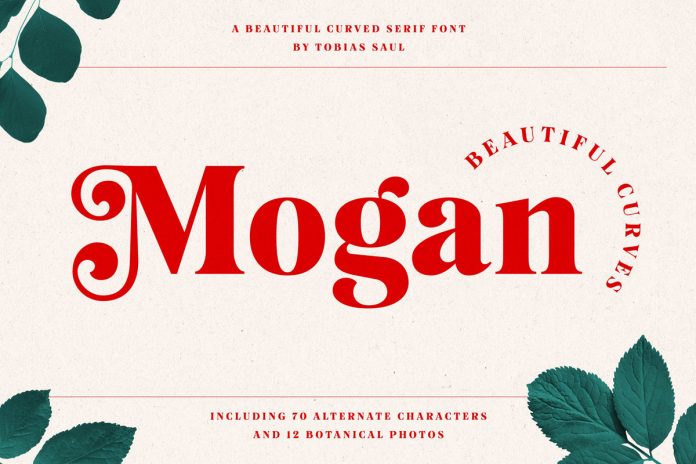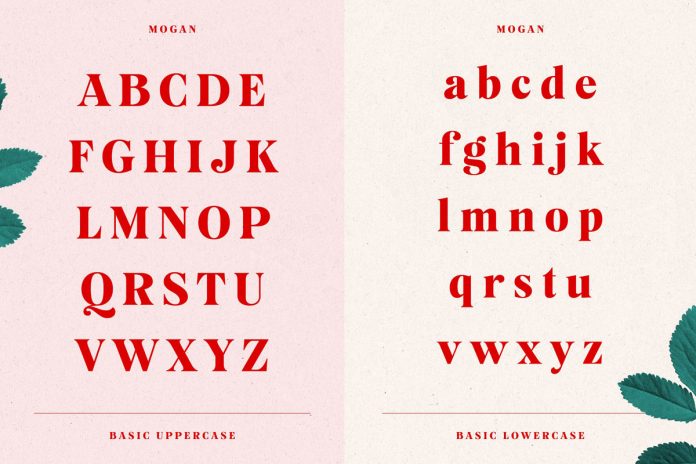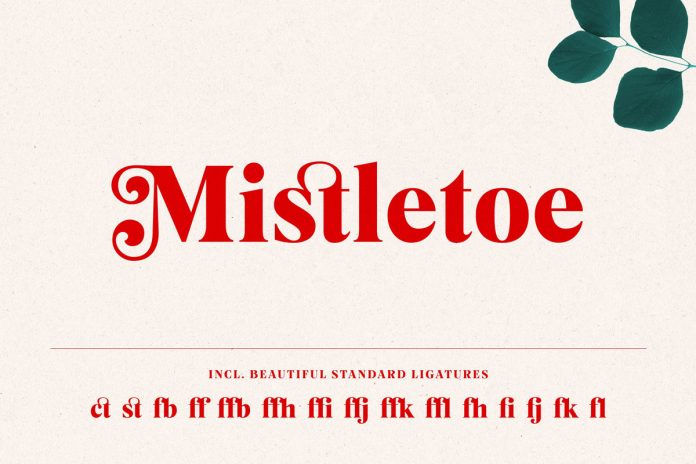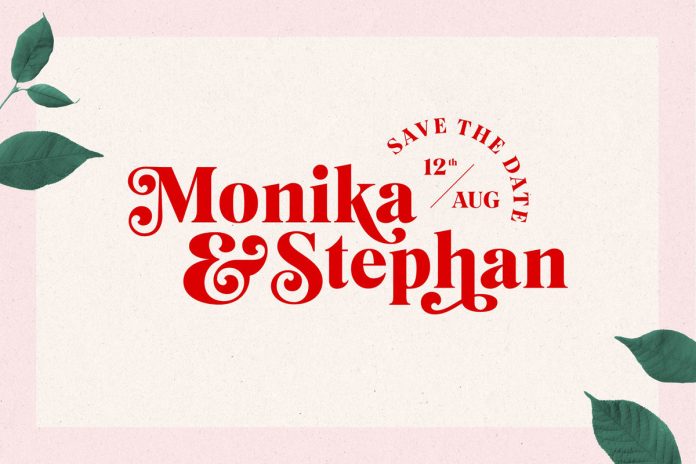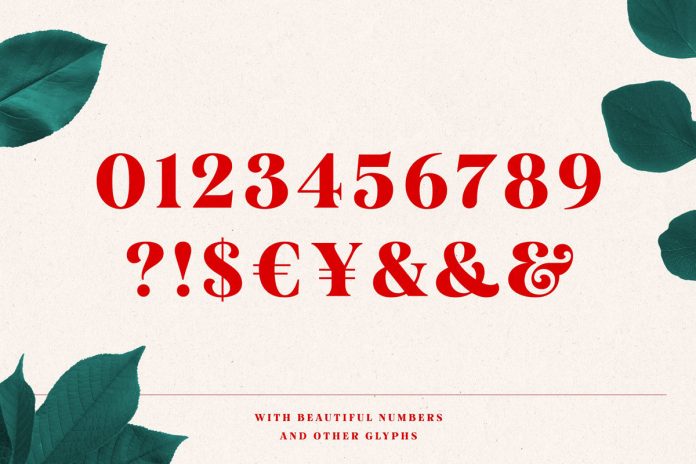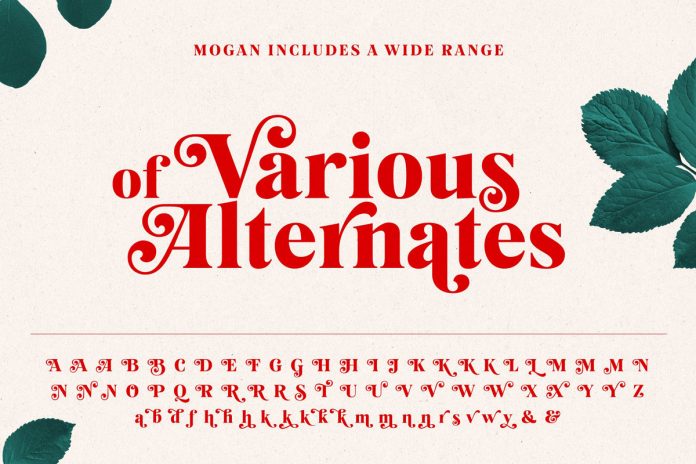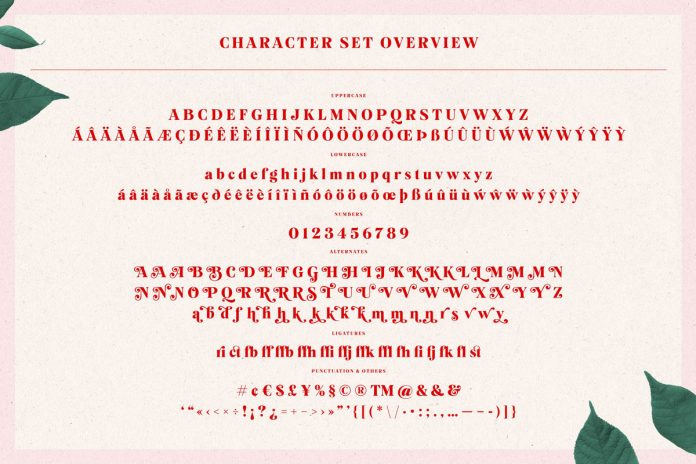
Mogan, a beautifully curved serif font designed by Tobias Saul.
Just recently designed and published by Tobias Saul, Mogan is a serif font with nicely balanced curves that comes with upper and lowercase letters plus numerous typographic features. It is mainly inspired by vintage lettering. Tobias Saul has combined these influences with a strong modern appearance. Packed with a wide range of stylistic alternates, the typeface allows versatile design options. It’s a great choice for headlines, logos, posters, packaging, t-shirt designs, postcards, just to name a few. In addition, the package includes a bonus of 12 leaf images, which you can also see in the presentation below. To learn more, just click on the following link.